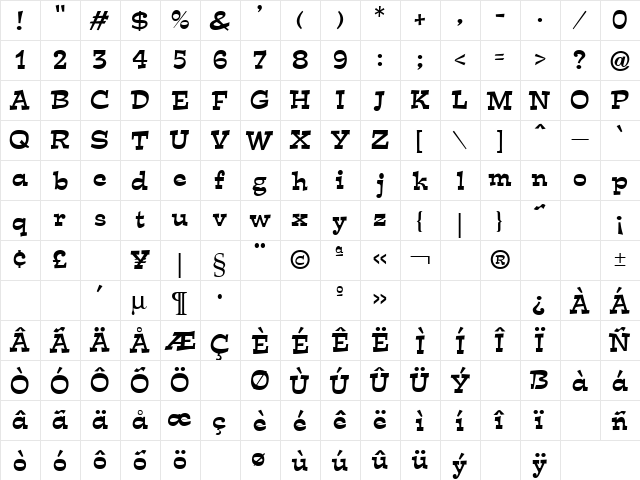
Trace 1 Regular
Trace 1 takes a measured approach to typography — its balanced proportions and neutral character make it a reliable workhorse for both digital and print work.